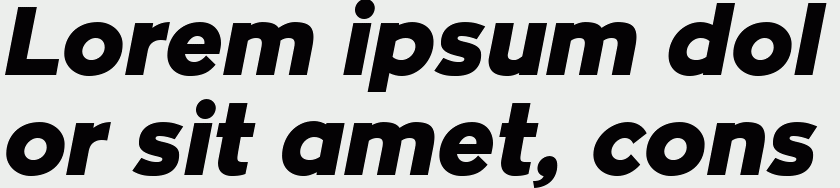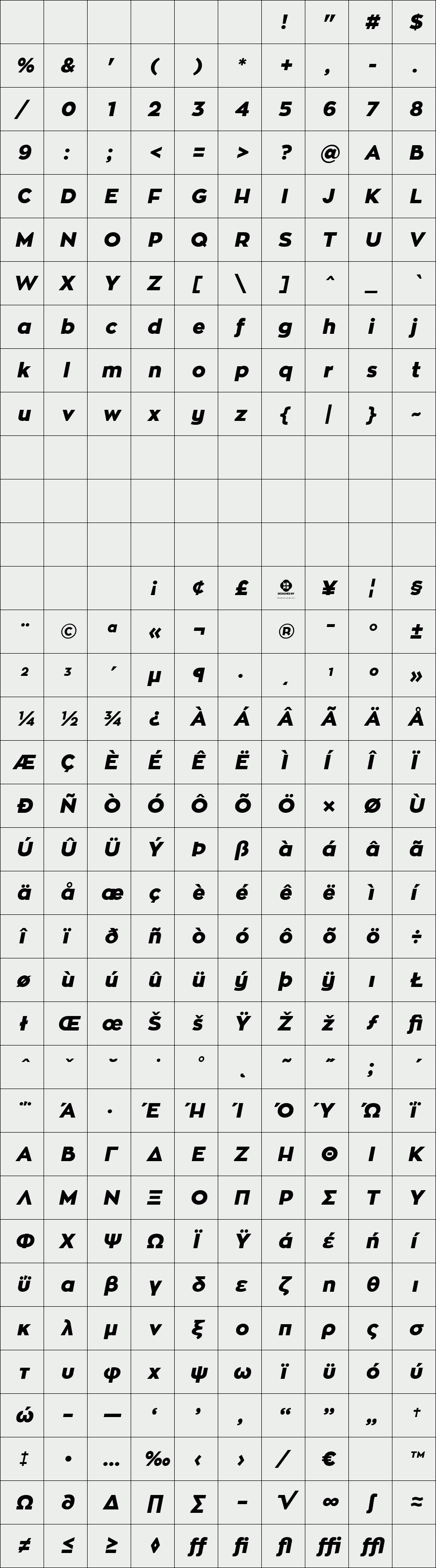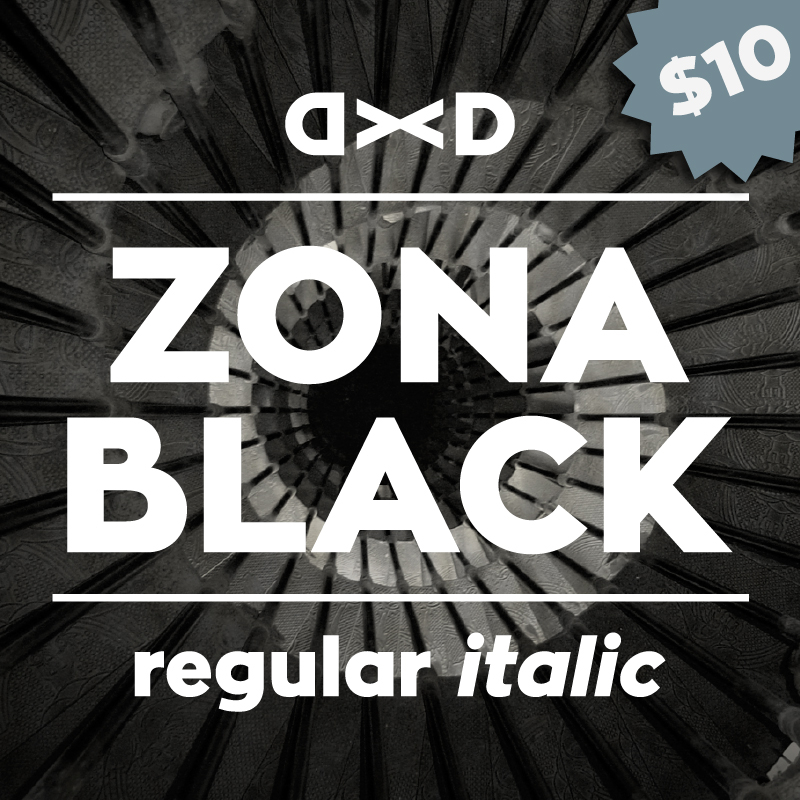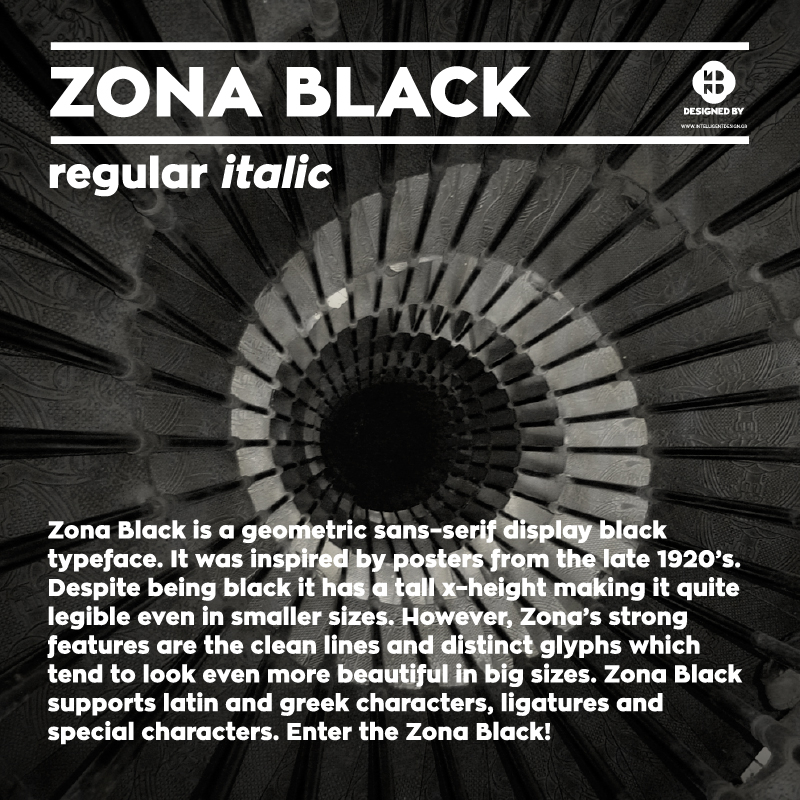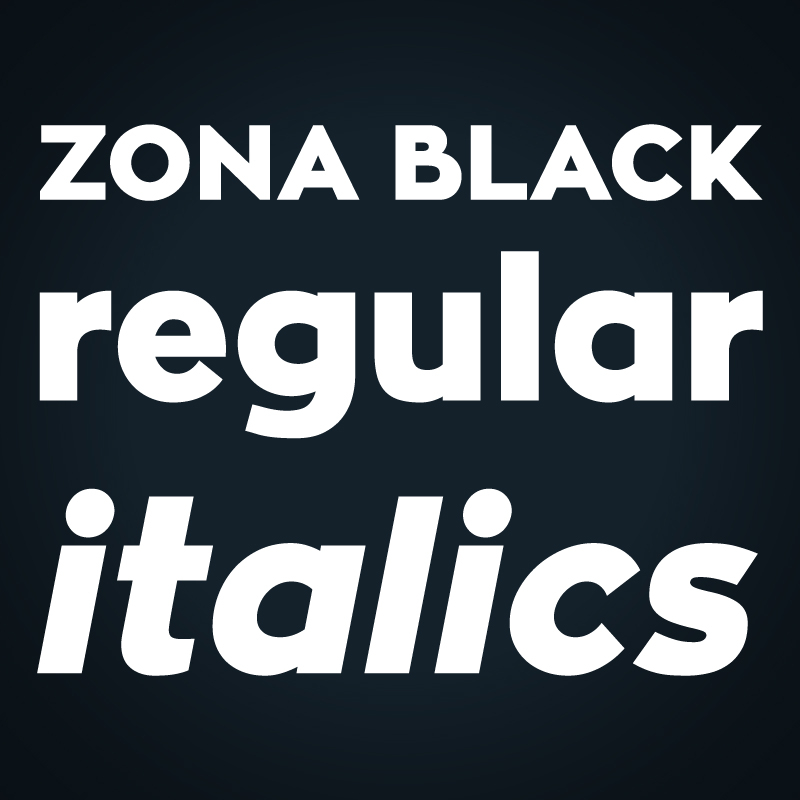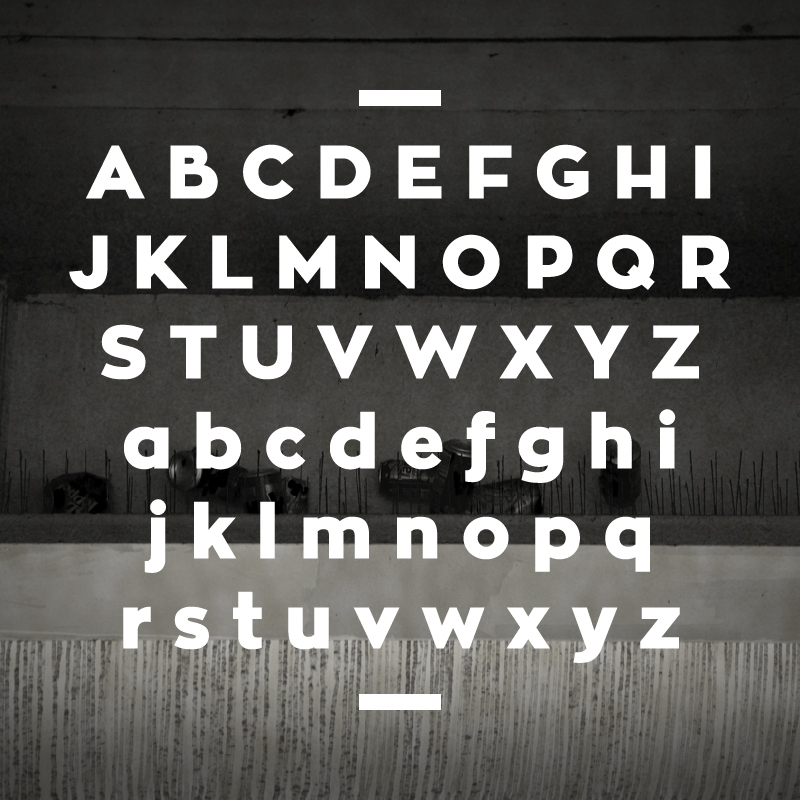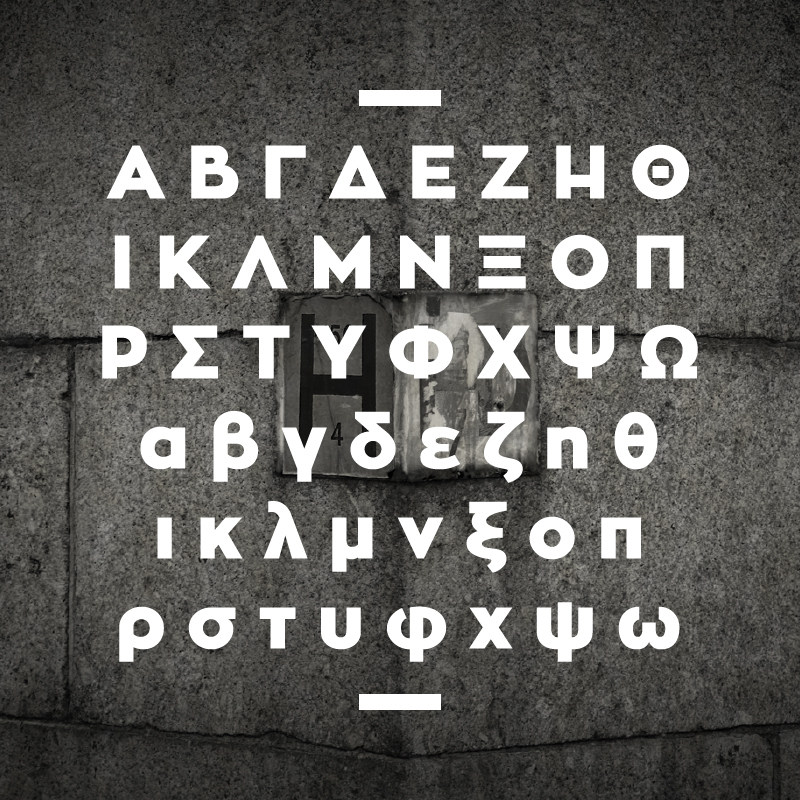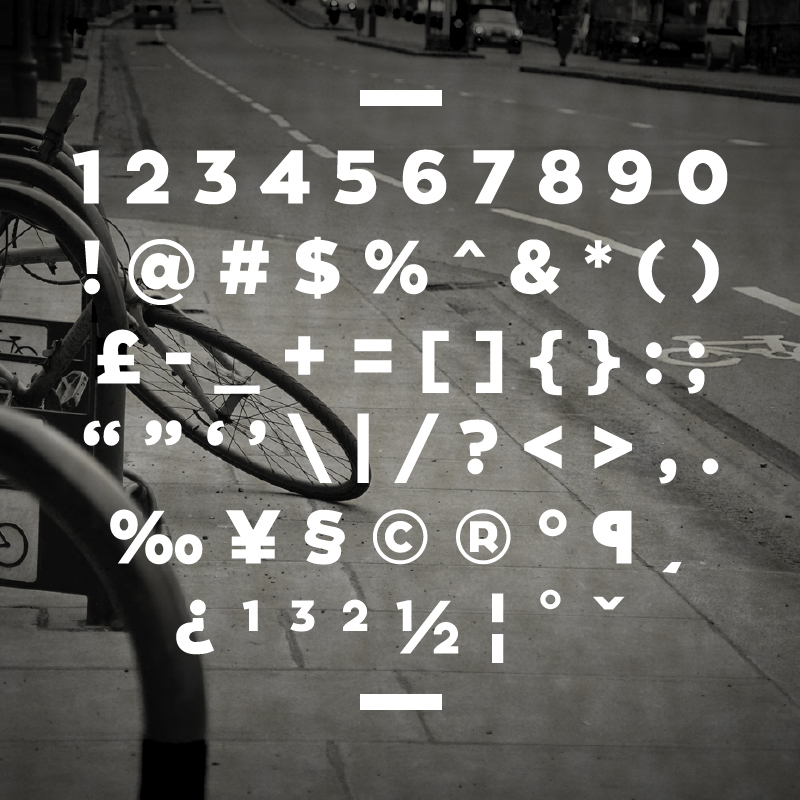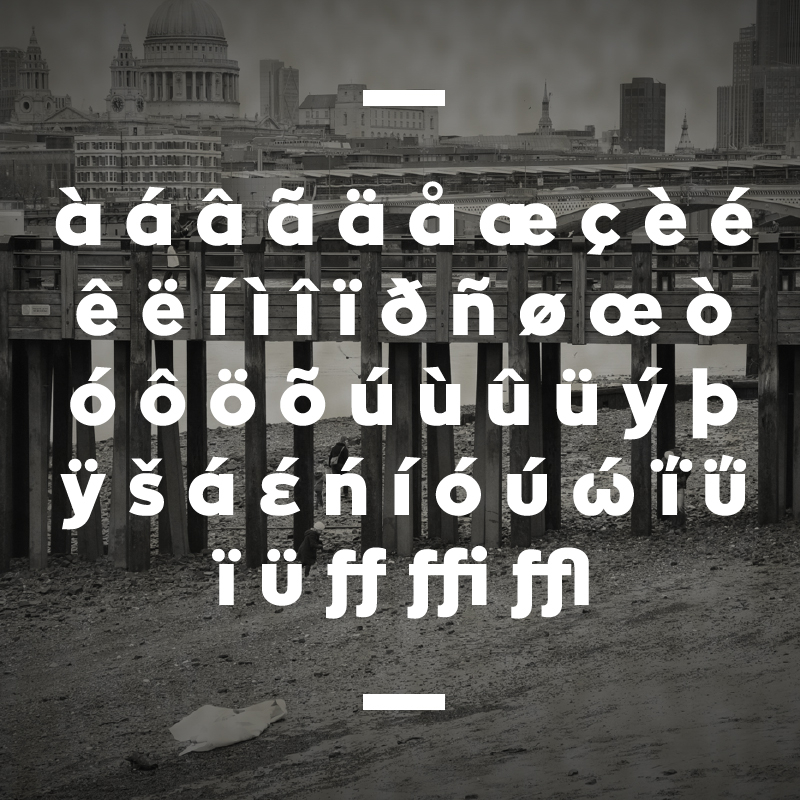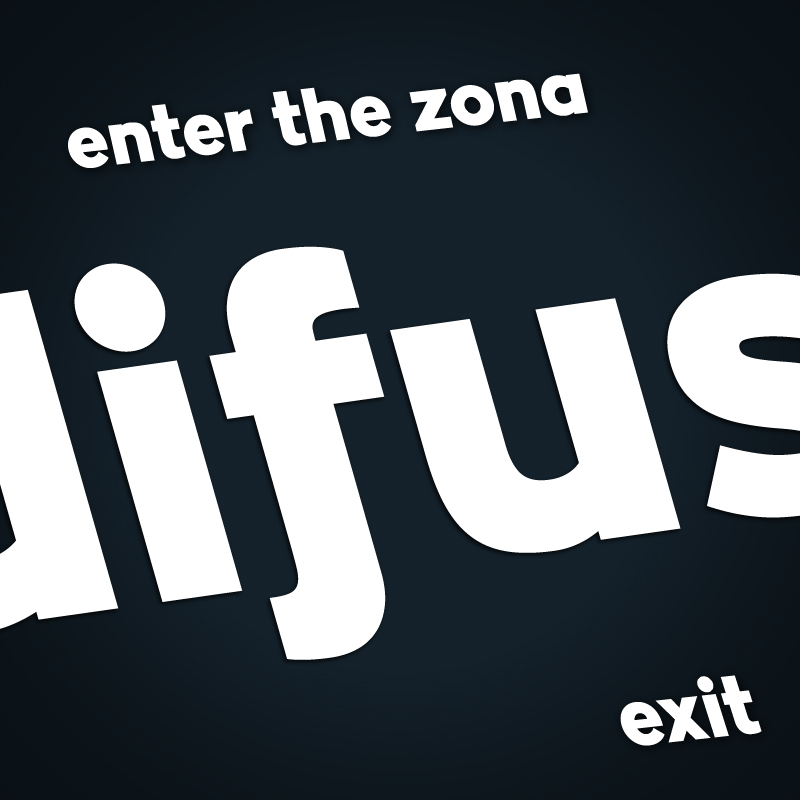
Zona Black
/ Zona Black Italic
Zona Black is a geometric sans–serif display black typeface. It was inspired by posters from the late 1920’s. Despite being black it has a tall x–height making it quite legible even in smaller sizes. However, Zona’s strong features are the clean lines and distinct glyphs which tend to look even more beautiful in big sizes. Zona Black supports latin and greek characters, ligatures and special characters. Enter the Zona Black!
Designer: Kostas Bartsokas